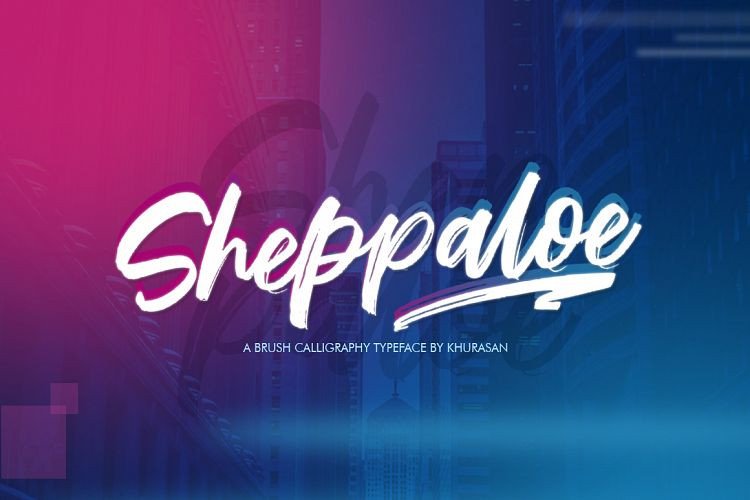
Sheppaloe Brush Font
A brush calligraphy typeface by khurasan. Perfect for making elegant stylish statements – or adding a touch of class to your designs. Introducing Sheppaloe Font. The Sheppaloe is a fresh handwritten font brush, elegant and vintage feel character set. The Sheppaloe font includes a full set capital and lowercase letters, as well as multi-lingual support, currency figures, numerals, & punctuation.